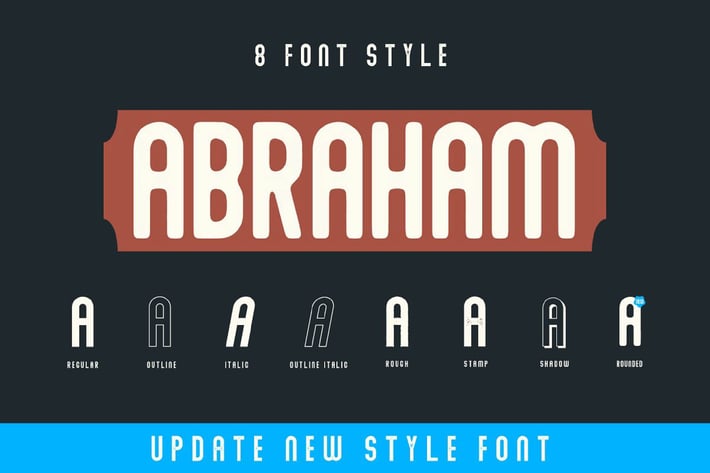
Abraham Font Family
SabrCreative
Introducing the Abraham Font Family is a modern, sans serif modular family. Abraham Font Family is based on solid solid fonts, combining various styles including Regular, Italic, Rough, Stamp and Shdow. Suitable for logos, greeting cards, quotes, posters, branding, business cards, stationary, design titles, blog headers, art quotes, typography.
You want to make a greeting card or package design, or even a brand identity, craft design, any DIY project, book title, pop, vintage design, retro design or any purpose for making art projects.
- Abraham Regular
- Abraham Regular Italic
- Abraham Outline
- Abraham Outline italic
- Abraham Rough
- Abraham Stamp
- Abraham Shadow
- Abraham Rounded
- Upper Case & Lowercase
- Stylistic Alternates
- Standard Ligatures
- Numerals & Punctuations (OpenType Standard)
- Accents (Multilingual characters) (AÀÁÂÃÄÅCÇDÐEÈÉÊËIÌÍÎÏNÑOØÒÓÔÕÖUÙÜÚÛWYÝŸỲŸÆŒßÞ)